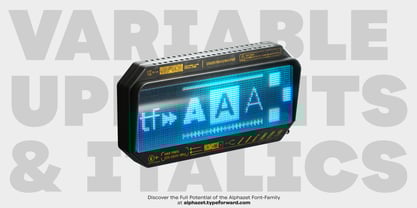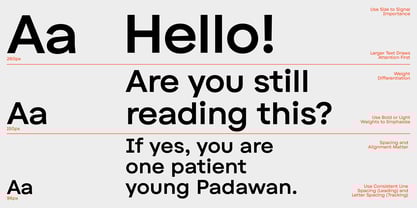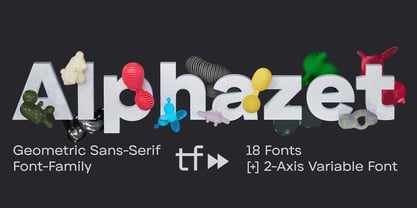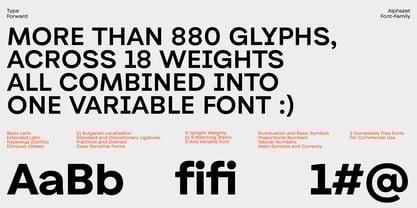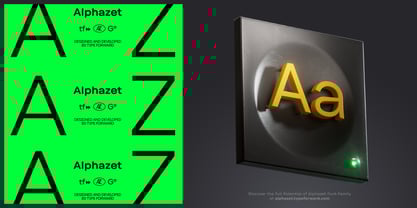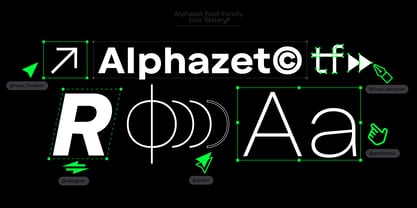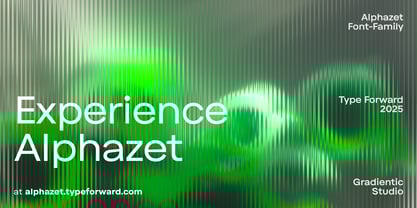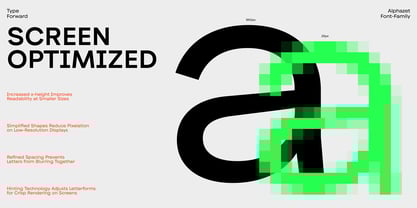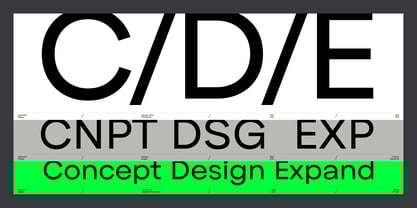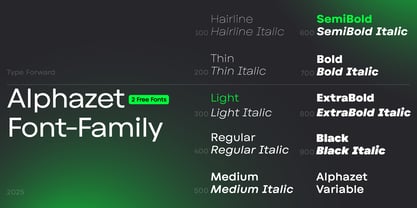
Alphazet
by Type Forward
The Alphazet Font Family was designed by Mirela Belova, Stan Partalev, Luboslav Boyanov and published by Type Forward. Alphazet contains 19 styles and family package options. More about this family
Alphazet is a geometric sans-serif with minimal stroke contrast and slightly wide proportions for improved readability. It includes 9 weights with matching oblique italics, all available as a variable font. With broad language support, OpenType features, and well-balanced spacing and kerning, Alphazet works well in both body text and display settings.
Developed by Type Forward and Luboslav Boyanov, Alphazet is based on geometric principles and designed for practical use. Its high x-height and stable proportions support legibility across a range of sizes. The typeface performs reliably in both extended reading and short, impactful text.
Alphazet is constructed from simple geometric forms, focusing on consistency and space efficiency. Short ascenders and descenders make better use of vertical space, and consistent weight distribution ensures uniform text color. The design avoids decorative details, maintaining a steady rhythm across lines.
The family includes 9 weights (Thin to Black), each with matching oblique italics. It is available in all necessary formats, including a single variable font file for flexible use. Alphazet suits a range of applications, from body text to headlines. Its proportions and spacing support readability at small sizes, while its structure remains strong at larger scales, such as in signage and posters.
Key Characteristics
• 9 weights with matching italics
• Variable font file included
• Supports 220+ languages (Extended Latin, Cyrillic, Greek)
• Low stroke contrast
• High x-height with short extenders
• Slightly wide letterforms
• Mix of diagonal terminals (in c, e, s) and straight cuts (in t, f, r)
• Subtle asymmetries in letters like a, e, B, G
• Conventional sans-serif forms for steady reading flow
• Carefully tuned spacing and kerning across styles
OpenType features:
• Ligatures
• Stylistic sets
• Contextual alternates
• Tabular figures
• Fractions
• Ordinals
• Case-sensitive forms
Designers: Mirela Belova, Stan Partalev, Luboslav Boyanov
Foundry: Type Forward